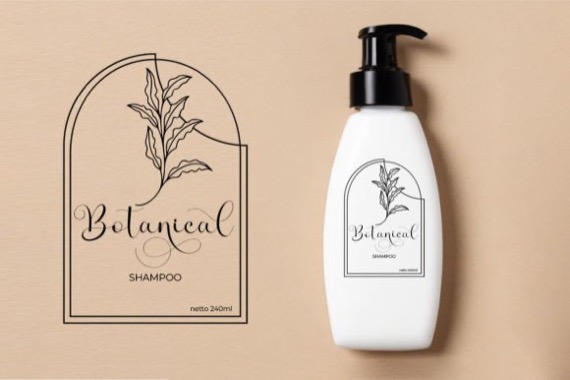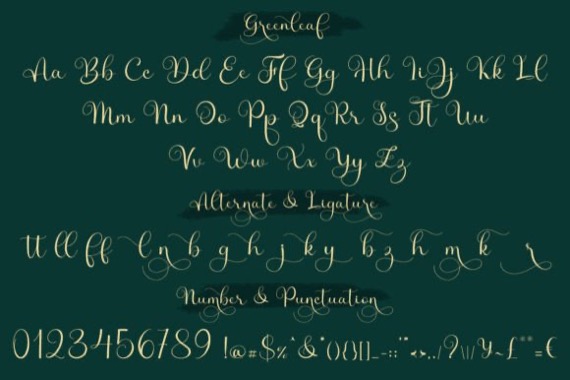
Introducing Greenleaf Font from Tabriiz. It’s a modern and chic calligraphy script font: a font collection characterized by its elegance and simplicity. This collection features two distinct fonts: Greenleaf Regular and Greenleaf Extra.
Greenleaf Regular: A versatile font with a clean and refined aesthetic, ideal for various design projects. Its simplicity allows for clear and straightforward communication.
Greenleaf Extra: This font expands upon the regular version by incorporating numerous exquisite botanical symbols. These symbols add a touch of natural beauty and sophistication to your designs, making them visually captivating and unique.
With the Greenleaf Script, you have the perfect combination of elegant typography and stunning botanical elements at your disposal, ensuring your designs stand out with their charm and simplicity.
Greenleaf Calligraphy Script Font